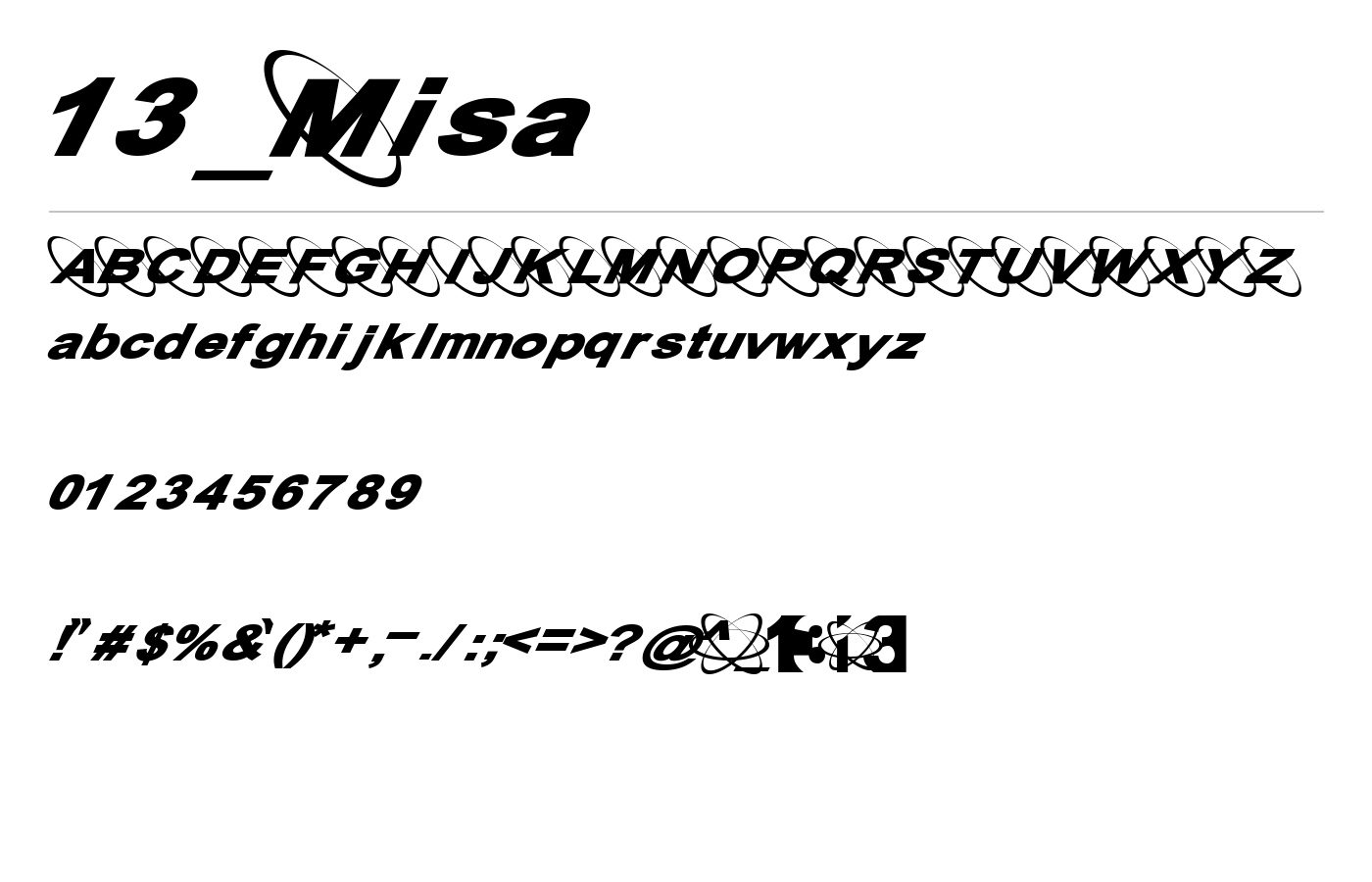
13_Misa is a bold, italic sans serif font with a strong forward slant that conveys energy and movement. Its uniform stroke weight, tight letter spacing, and modern geometric shapes make it ideal for dynamic branding, sports, and tech-related designs where a sleek, confident look is desired. This font works best in headlines, logos, and promotional materials to grab attention with a sporty, contemporary vibe.
13_Misa Font
About 13_Misa Font
| Font family | 13_Misa Font |